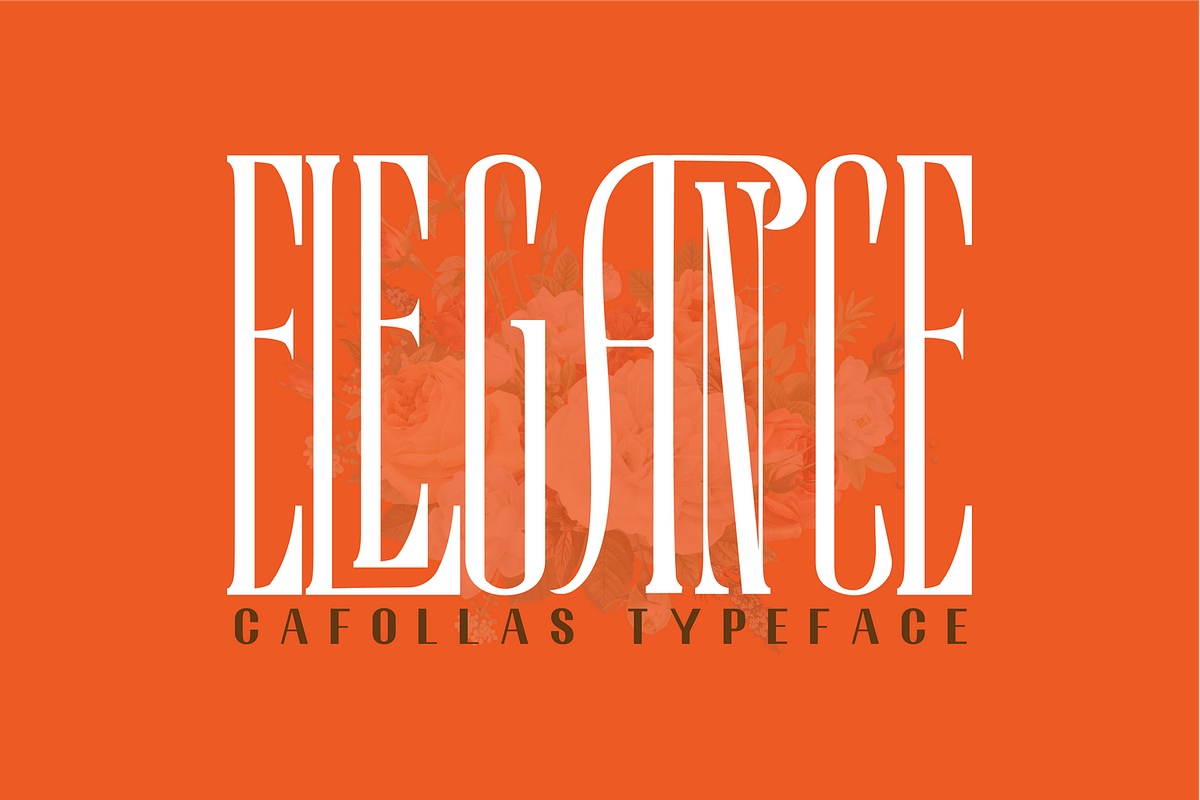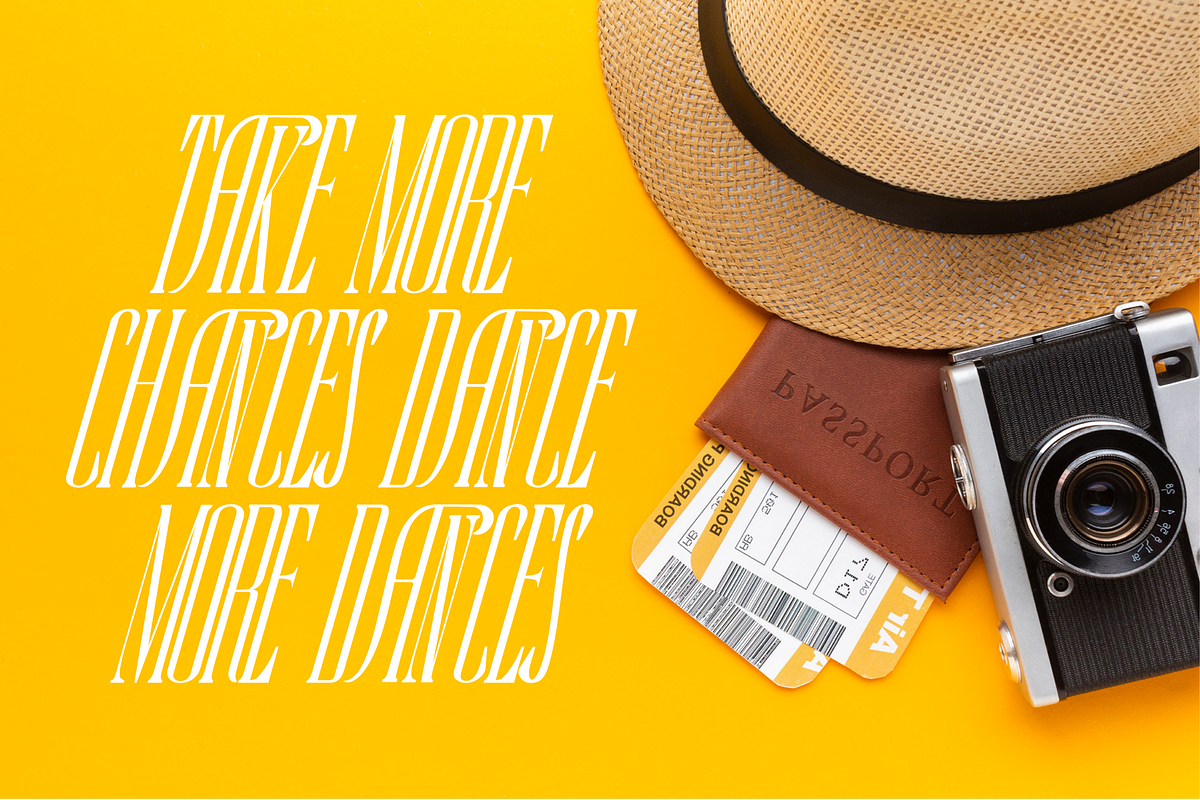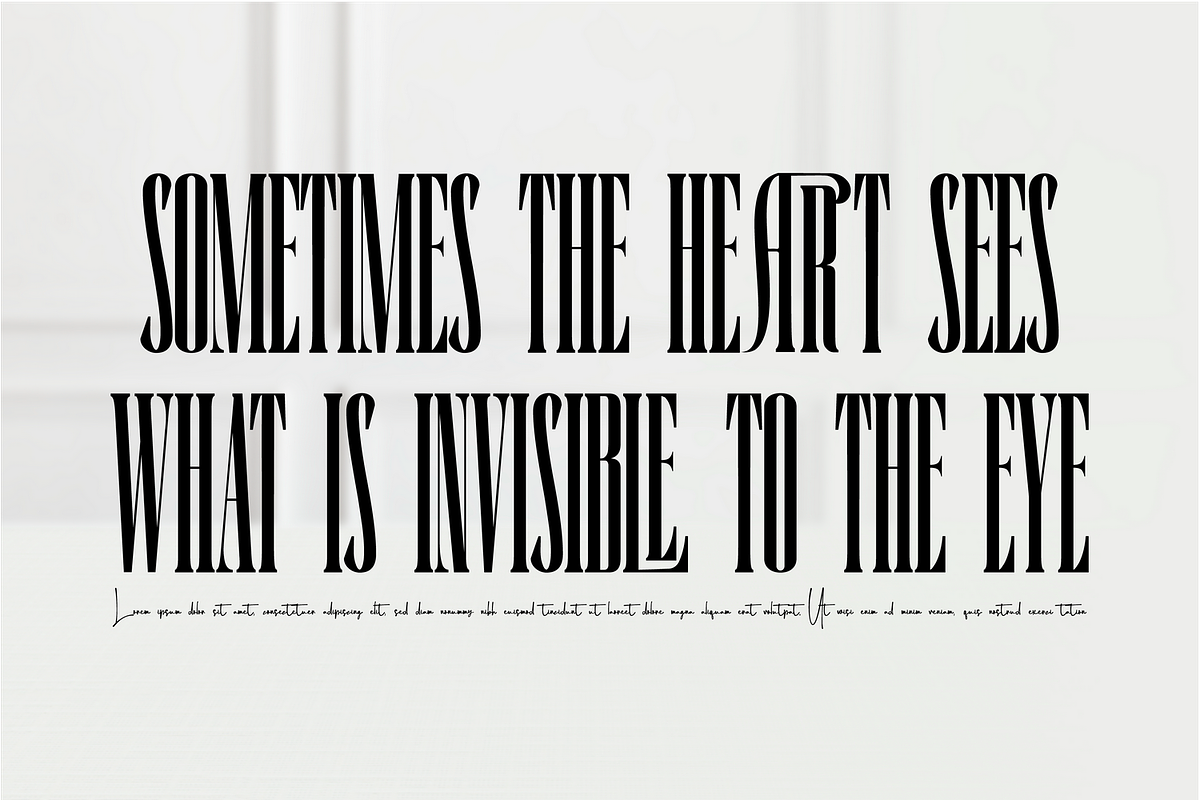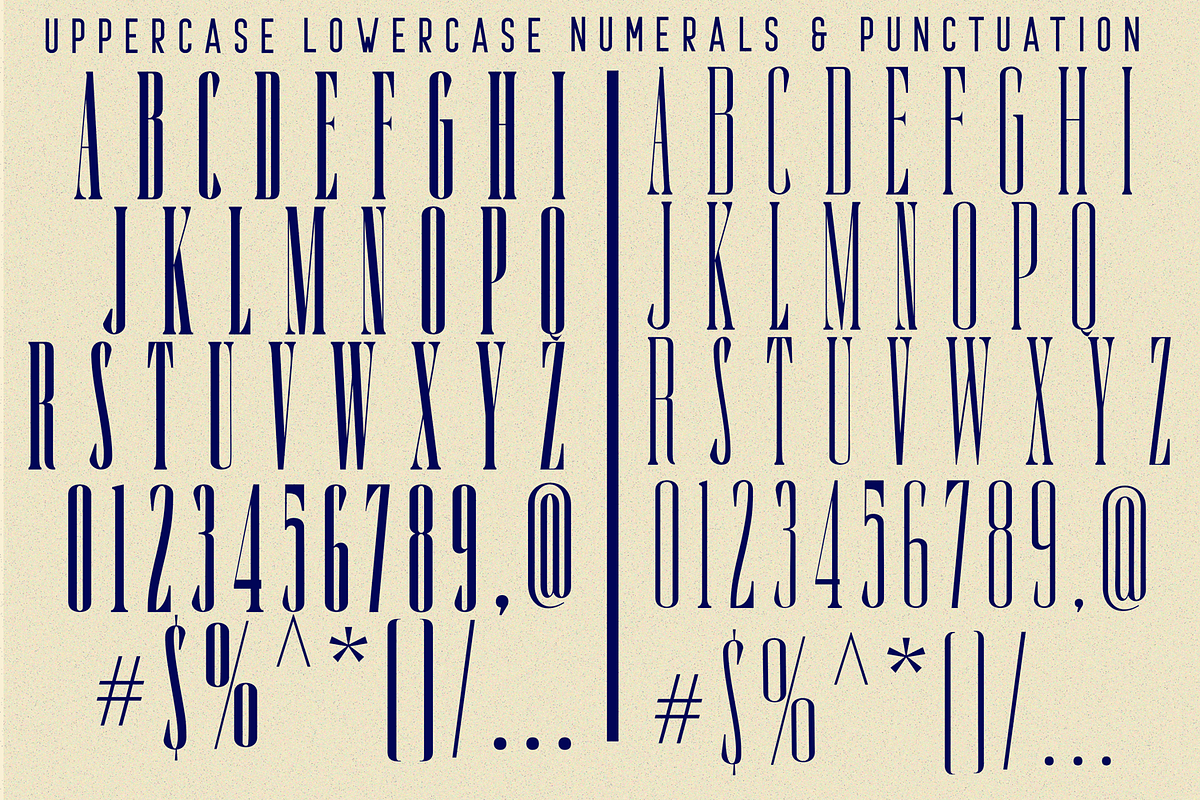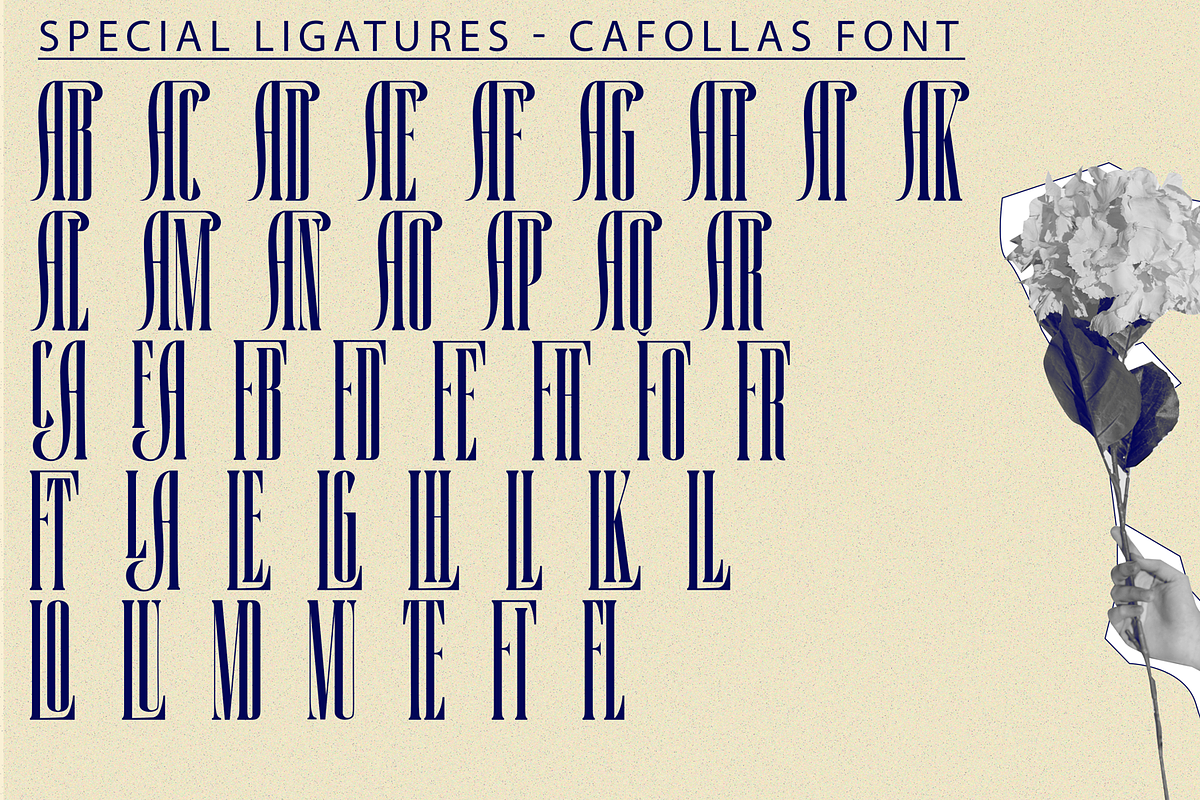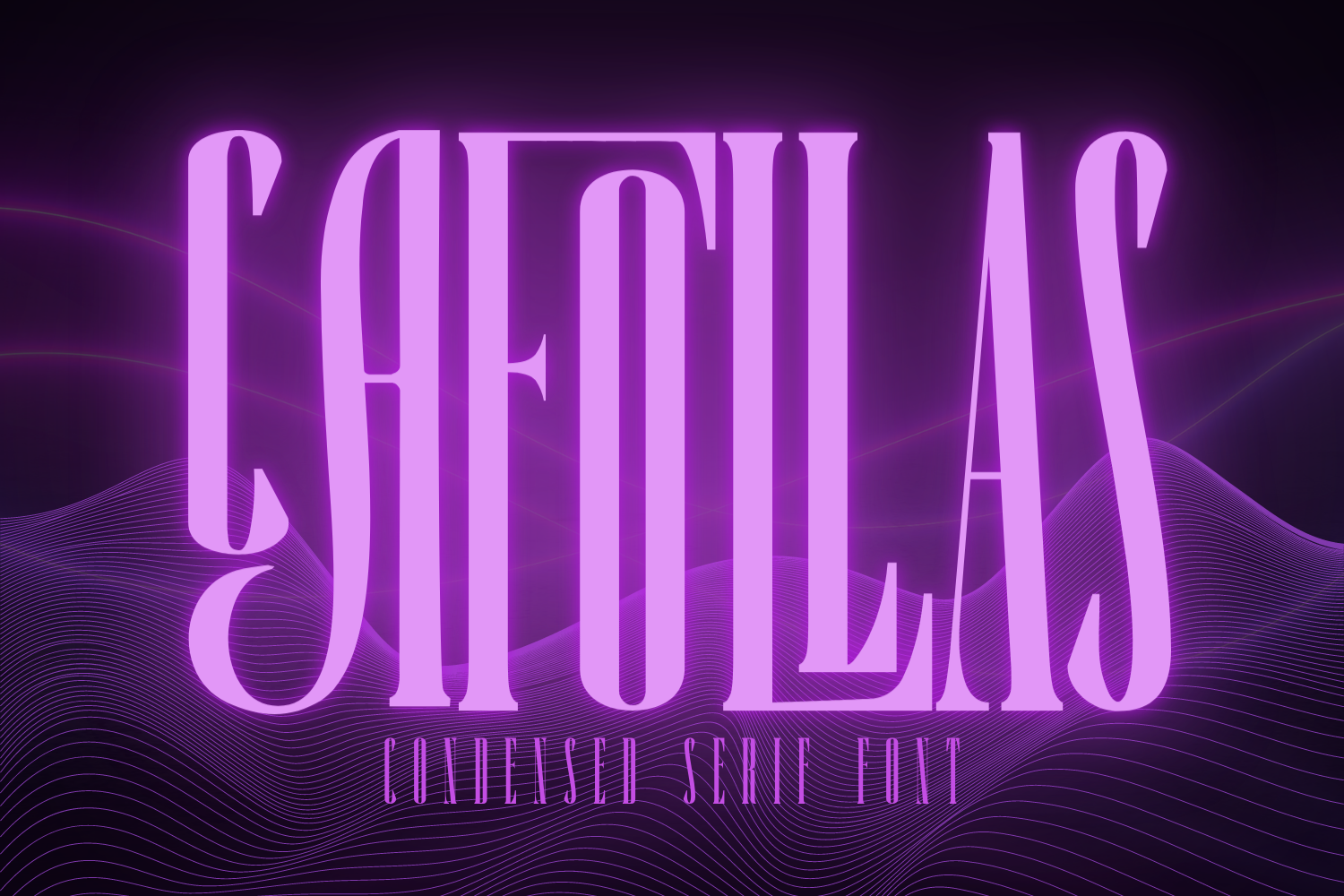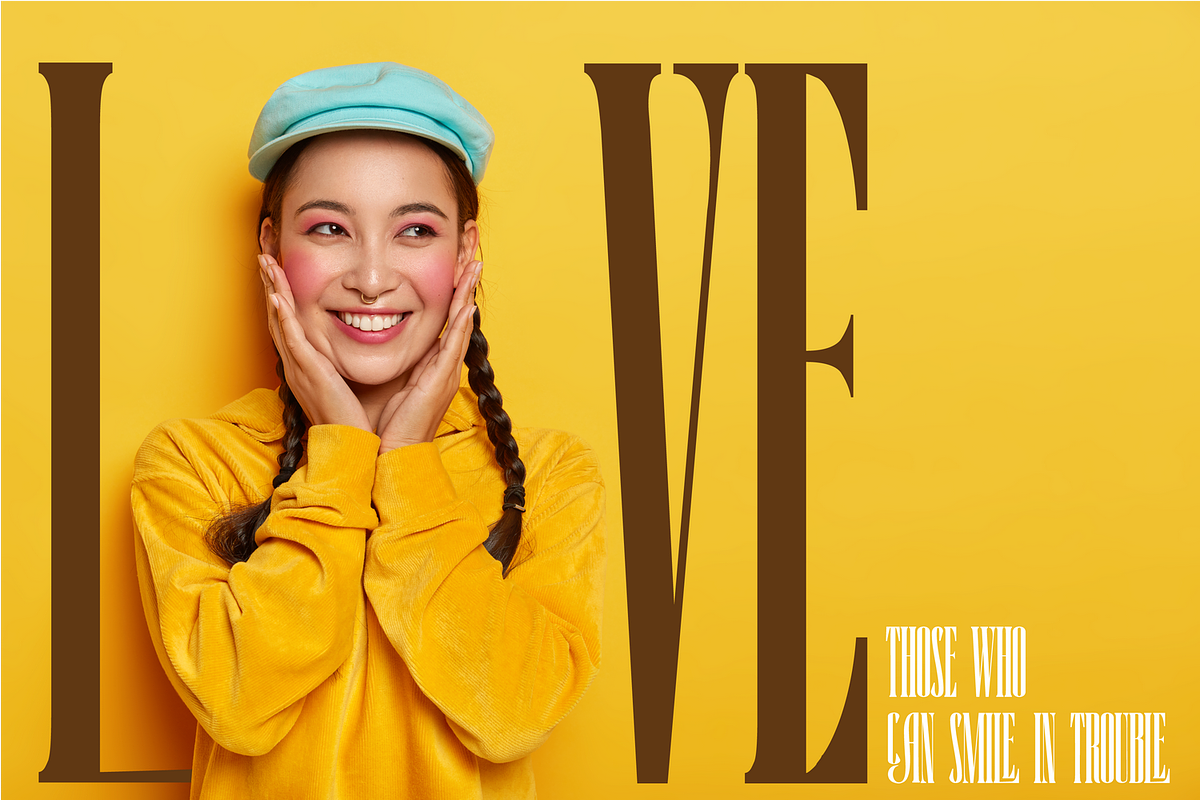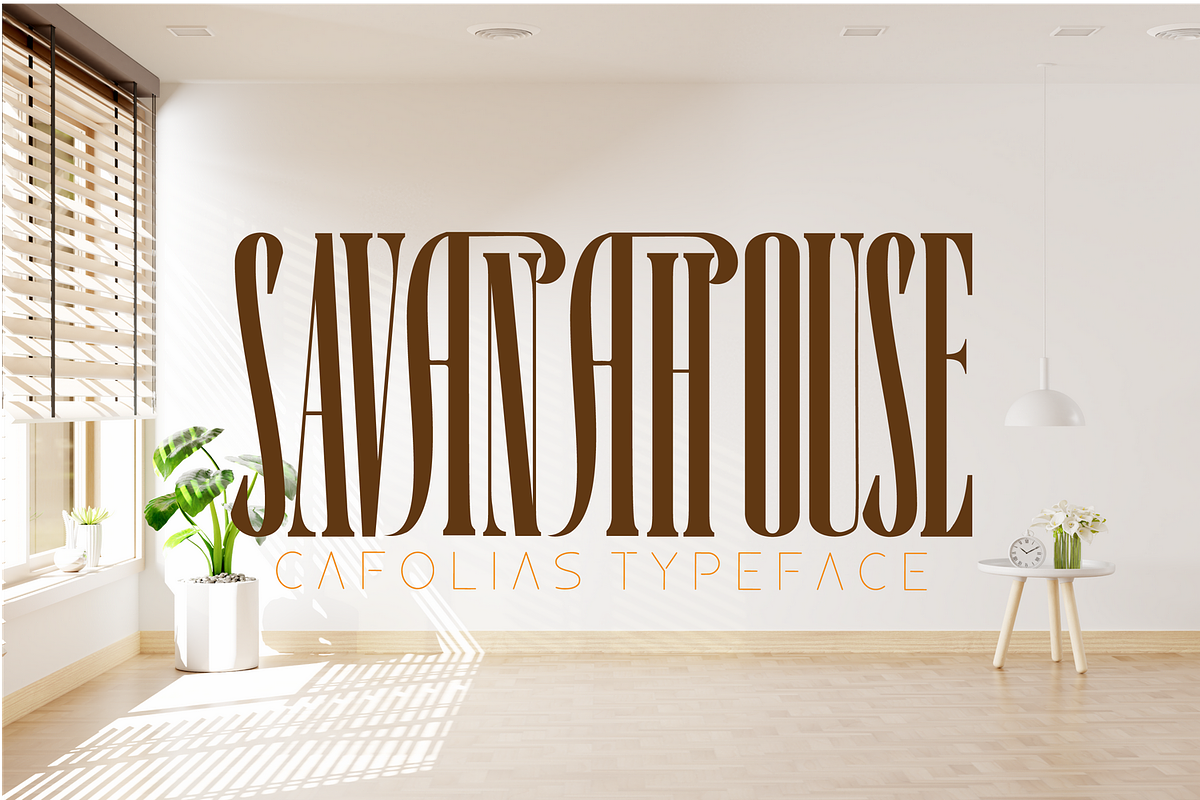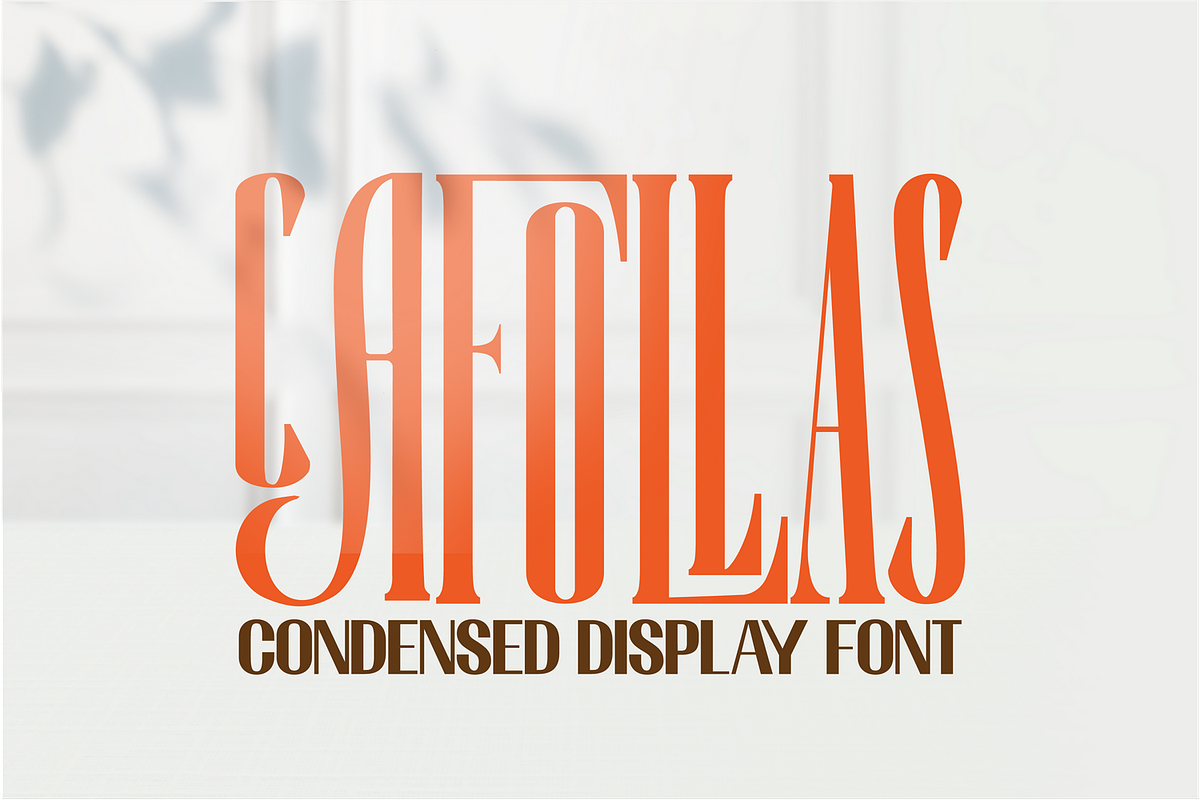
Cafollas - Condensed Font
Cafollas Font is a condensed serif typeface created to be used for bold titles with distinctive shapes into a display fonts way to make it legible for contemporary use. It's an extra condensed grotesque, made with its own unique character and form of typeface. It's a massive font that will grab the attention. This font is perfect for Headlines and titles, digital advertisements, brochures and flyers, infographics and data visualizations, navigation menus and labels, web designs, logotypes, t-shirts, and many more.
To make it look more unique, here we prepared some ligatures:
AB AC AD AE AF AG AH AI AK AL AM AN AO AP AQ AR CA FA FB FD FE FH FO FR FT LA LE LG LH LI LK LL LO LU MD MU TE FI FL
Cafollas is also included full set of:
- Special Ligatures